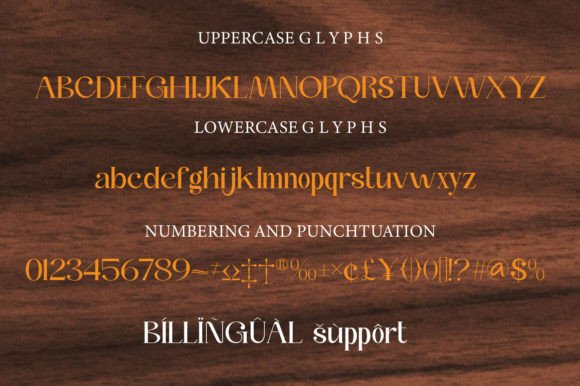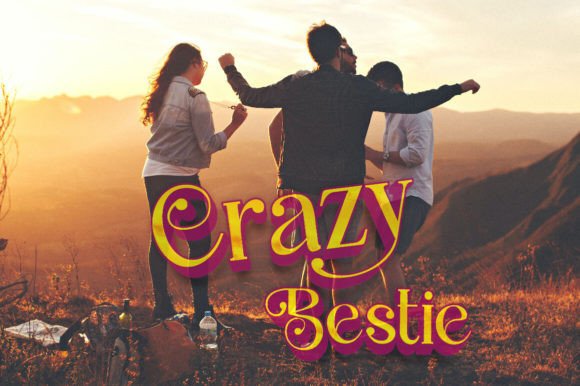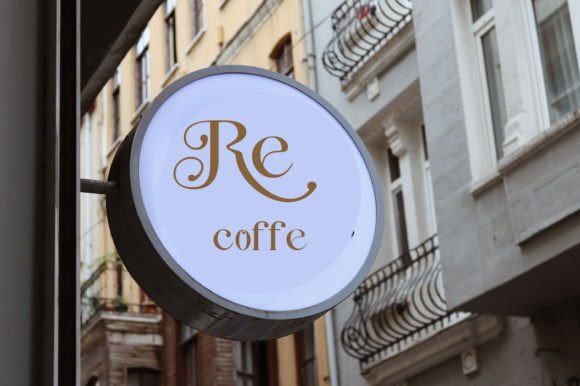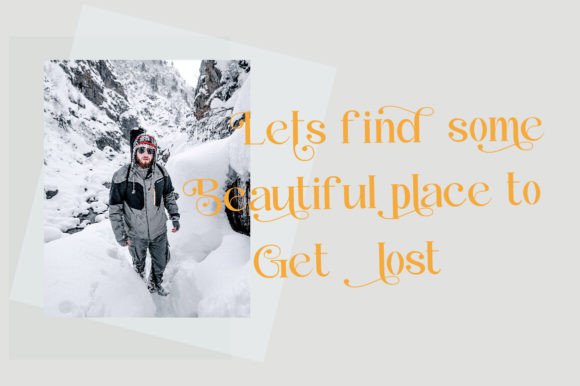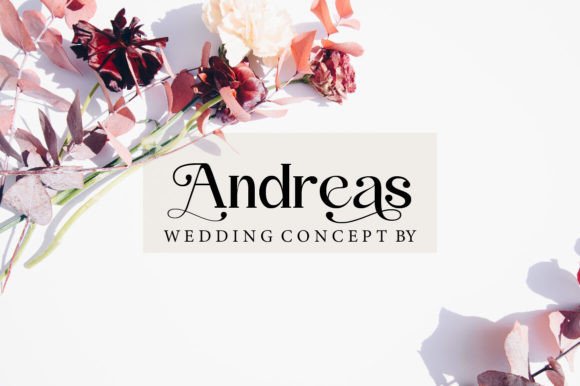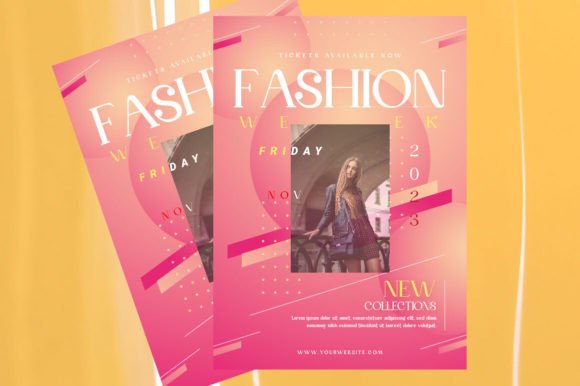
The Power of a Perfect Font: Introducing Beauty Font
As designers, we’ve all been there – staring at a blank page, trying to bring our creative vision to life. The right font can make all the difference, elevating our designs from bland to grand. And that’s where Beauty Font comes in – a modern serif font designed to add a touch of sophistication to any project.
Whether you’re working on a signature, a logo, or a magazine cover, Beauty Font is the perfect companion for your design needs. Its versatility and elegance make it an ideal choice for a wide range of projects, from branding and packaging design to web design and editorial displays. With Beauty Font, you can trust that your designs will be both visually stunning and effective in communicating your message.
Key Features of Beauty Font
- Unique Characteristics: Beauty Font features a unique blend of elegant and modern design elements, making it perfect for fashion, beauty, and lifestyle brands.
- Kerning and Ligatures: Beauty Font includes advanced kerning and ligature features, ensuring smooth and even spacing between letters.
Beauty Font Review
Overall, I’m quite pleased with the Beauty Font. ✨ The delicate, elegant lines and curves create a truly beautiful display. The font’s unique blend of classic and modern elements makes it a great choice for various projects.
- The high level of detail and craftsmanship that went into creating Beauty Font is impressive.
- The wide range of sizes and styles available make it suitable for various applications, from small text labels to large display headings.
- Beauty Font works well in both print and digital formats, ensuring consistency across different mediums.
However, I do have some reservations about the font’s limitations. ⚠️ The lack of bold or condensed weights might limit its use in certain situations, such as when a more dramatic or condensed style is required.
Another area for improvement is the font’s legibility at smaller sizes. While it remains clear and readable at larger sizes, it can become difficult to read at very small sizes.
Despite these limitations, I believe Beauty Font is a great choice for designers looking for a high-quality, elegant font. Its unique style and versatility make it a valuable addition to any design project.
Beauty Font is ideal for creative projects that require a touch of elegance and sophistication. Use it for:
- Branding and marketing materials
- Editorial and publishing projects
For optimal results, use Beauty Font in conjunction with high-quality images and design elements.